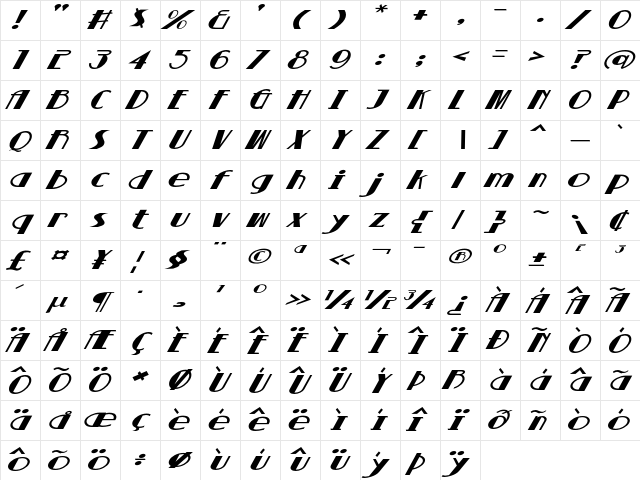
Complete Parisian Nights Extra-expanded Italic glyph index. Displaying only characters natively supported by Parisian Nights Extra-expanded Italic font.
Parisian Nights is a composed and adaptable typeface that performs quietly and consistently across a wide range of design contexts. The slanted form adds forward momentum and visual energy.